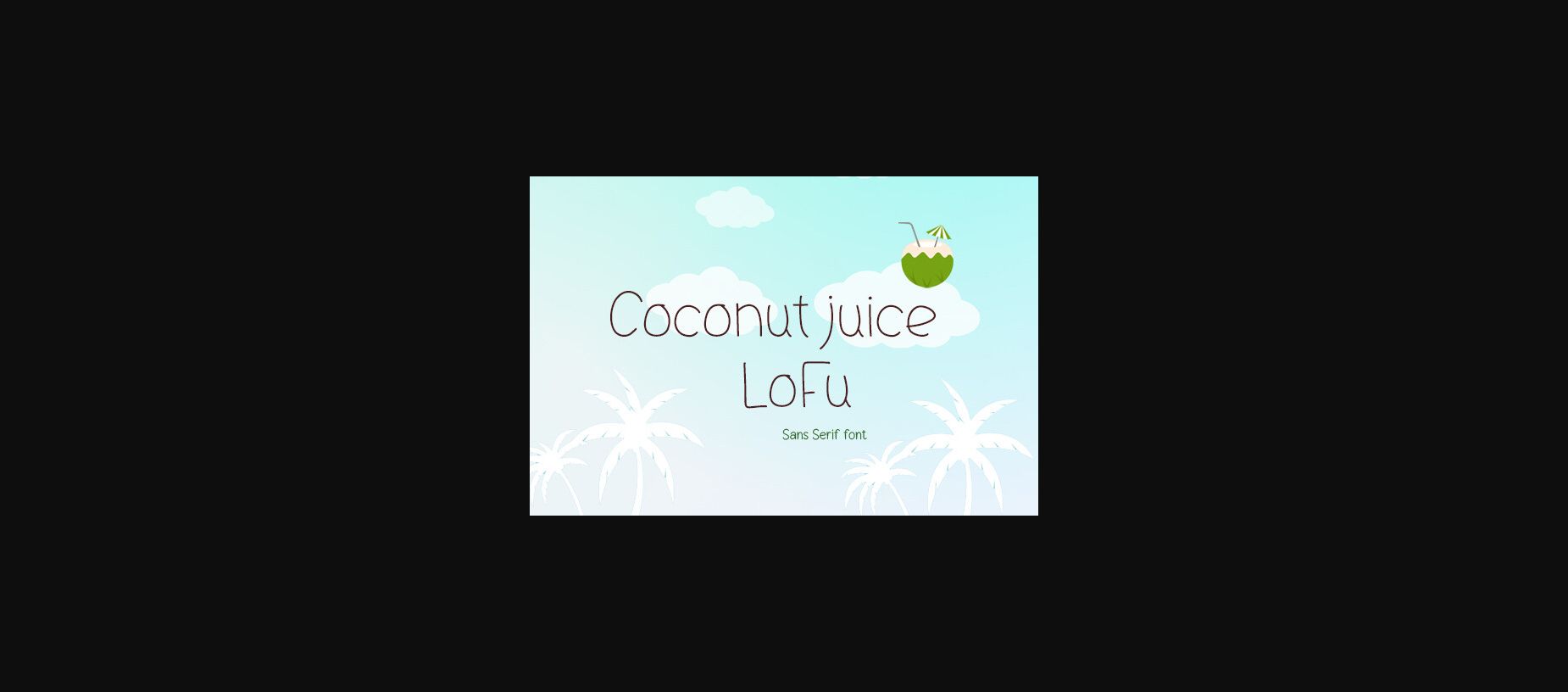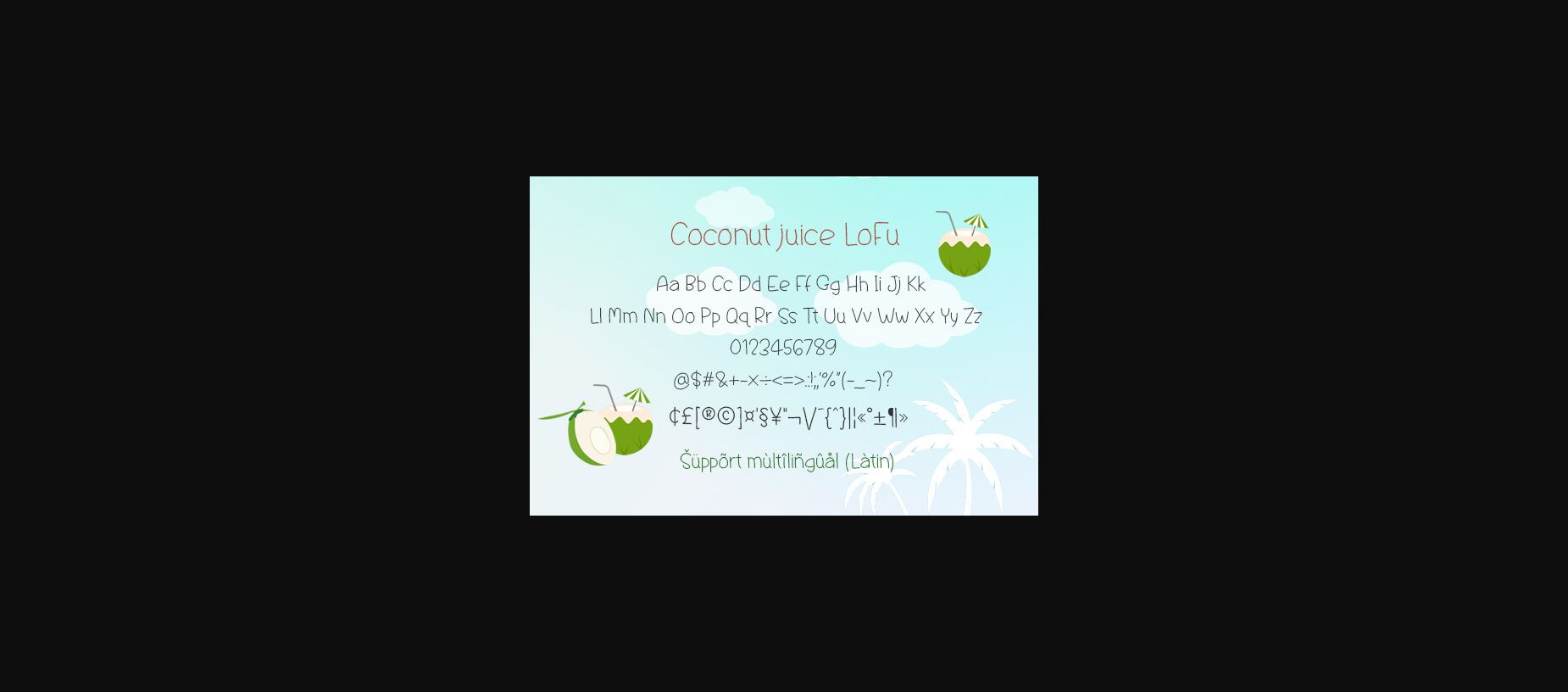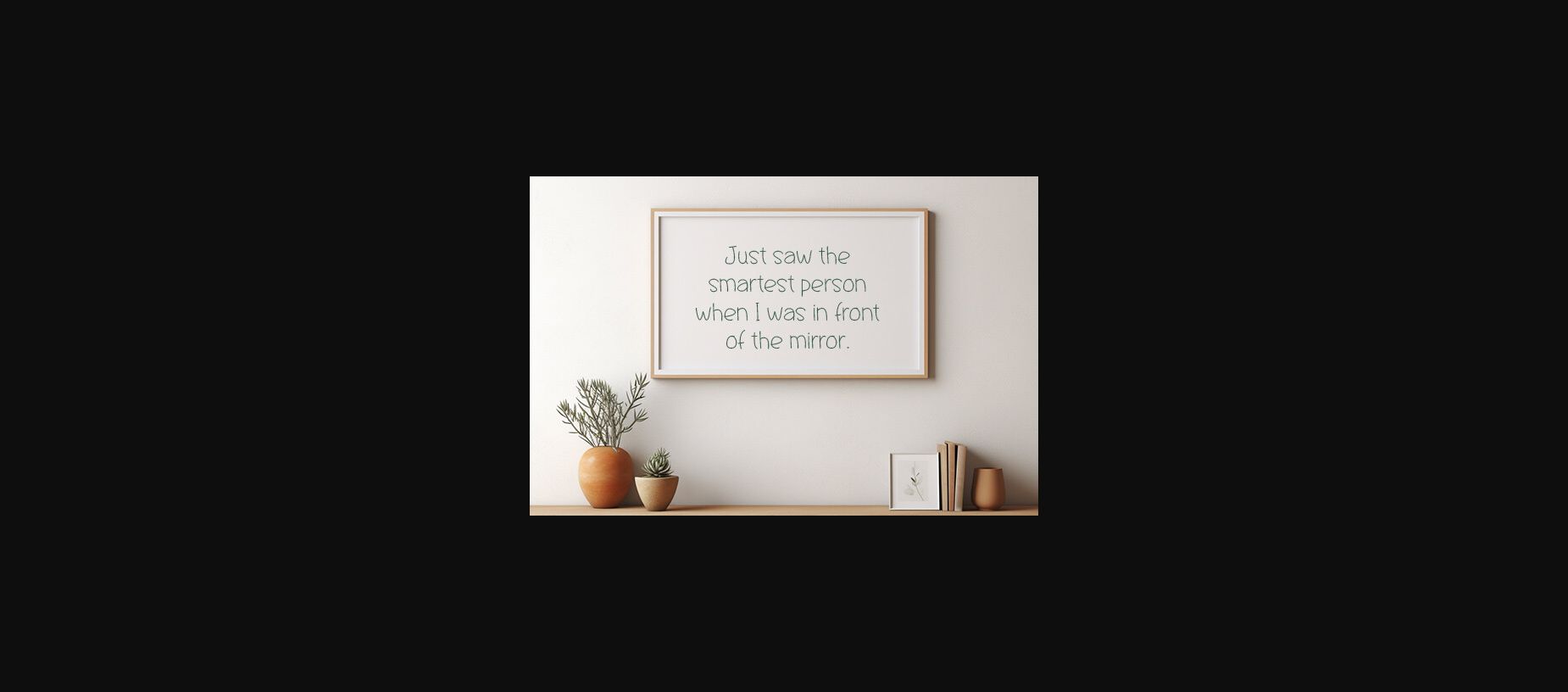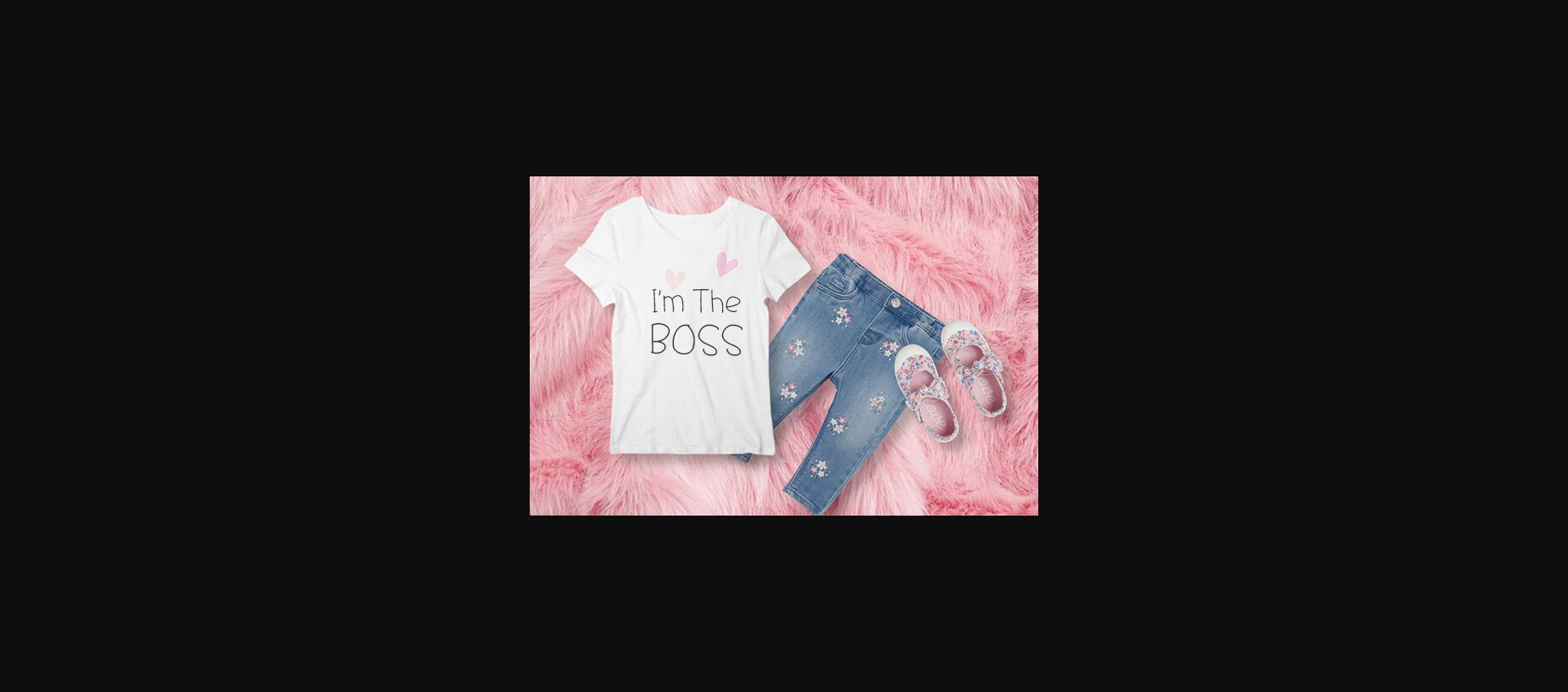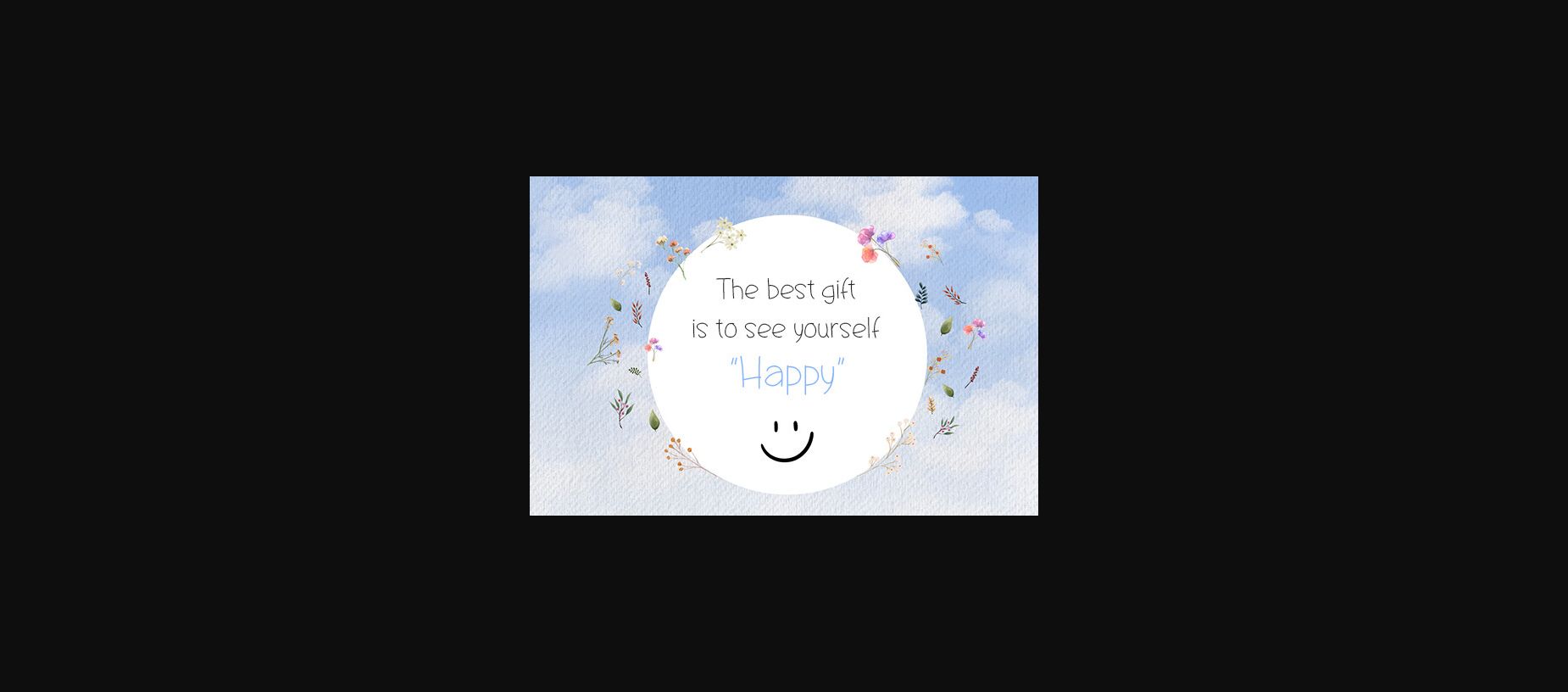
About Coconut Juice Lofu Font
Coconut juice LoFu is designed in a cute, minimal and playful sans serif font style. It would be an awsome addition to your fun projects and creative designs such as logos, posters, blogs, children themed designs, bag, T Shirt, clothing and other designs. choice for each of the creations that require a relaxed touch.